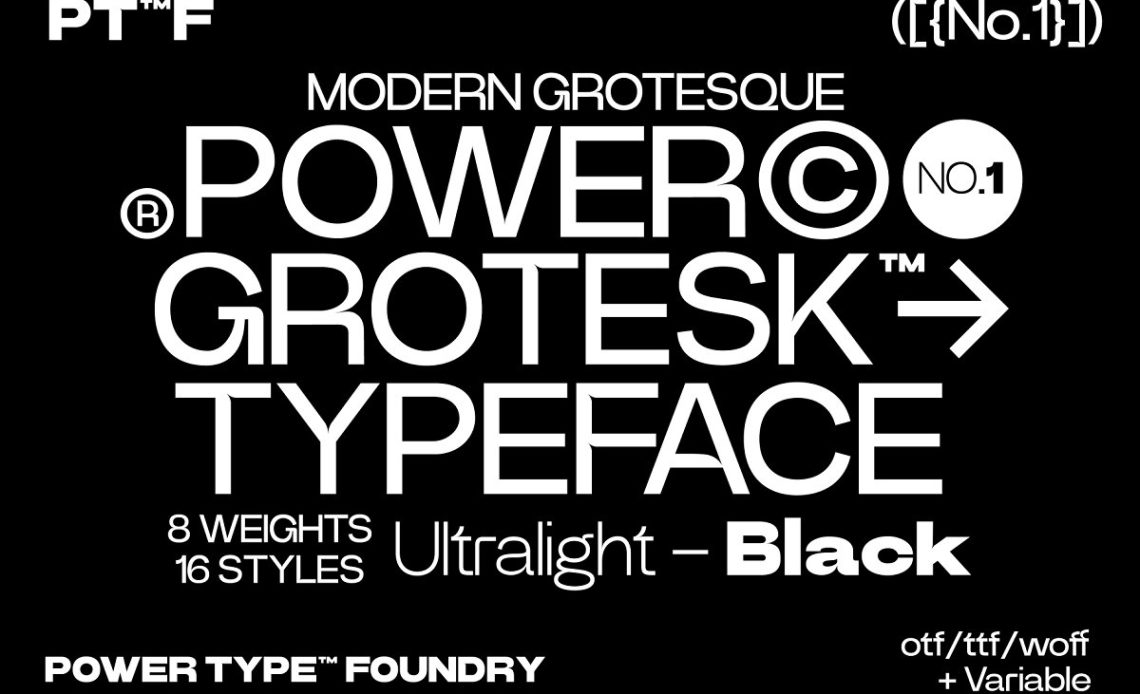
Are you tired of bland and unremarkable fonts that fail to make a statement? Look no further than the 70% Off Power Grotesk Font Family! Created by the esteemed Power Type Foundry, this sans serif typeface is perfect for anyone looking for the best fonts for plain text.
With details that lend it a unique character, Power Grotesk moves seamlessly between historical and modern typography, creating a fusion that's both contemporary and classic. This typeface's geometric shapes and structures were inspired by medieval typography, which gives it a special charm that sets it apart from other fonts.
But that's not all. Power Grotesk is also designed with legibility and contrast in mind, making it ideal for use in different sizes. Its special feature, which traps the right-sized ink for the text, ensures that every word is crisp and clear, making it easy to read and reproduce.
This impressive font family includes Power Grotesk Ultralight, Light, Regular, Medium, Bold, Ultrabold, and Black. And if that's not enough, there's also the Power Grotesk Variable, which is available in both TTF and WOFF2 formats.